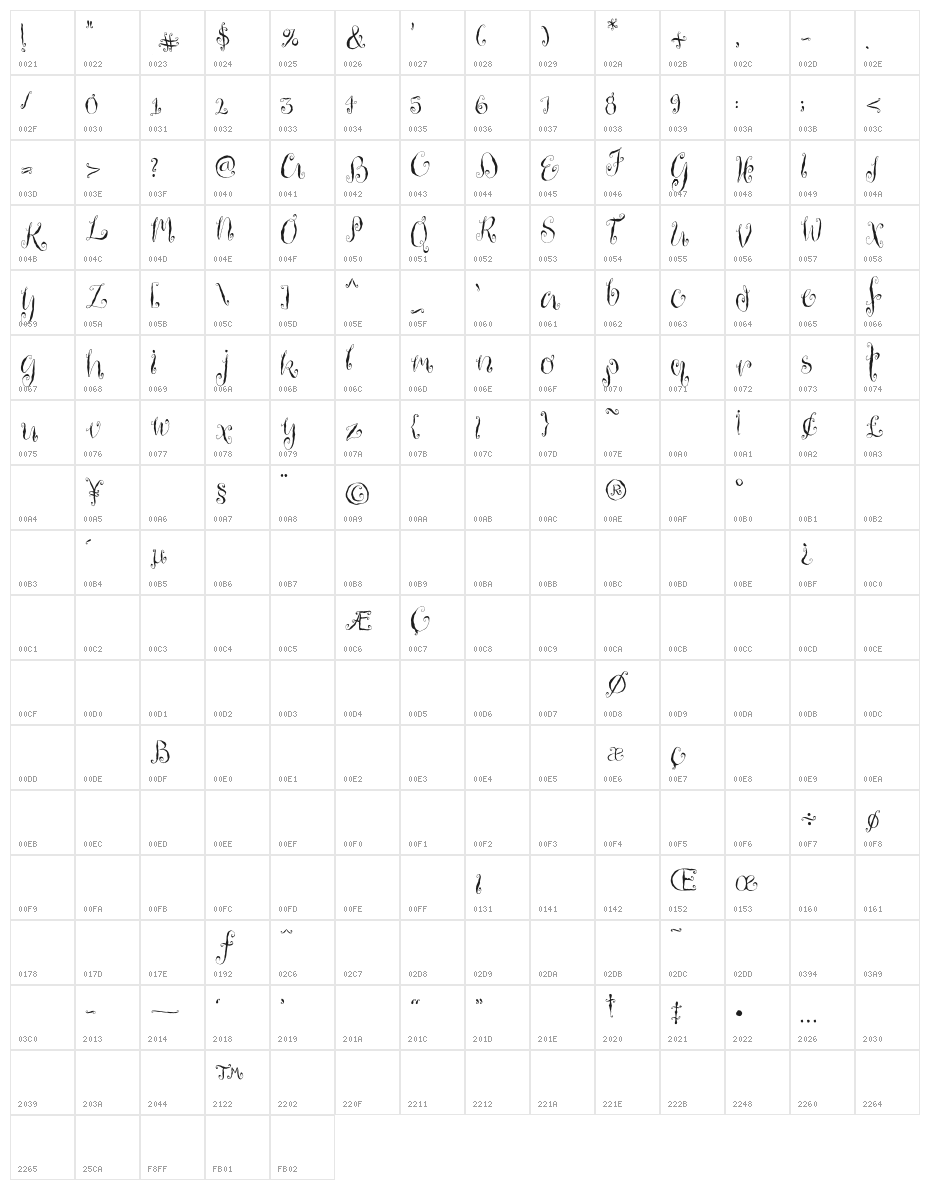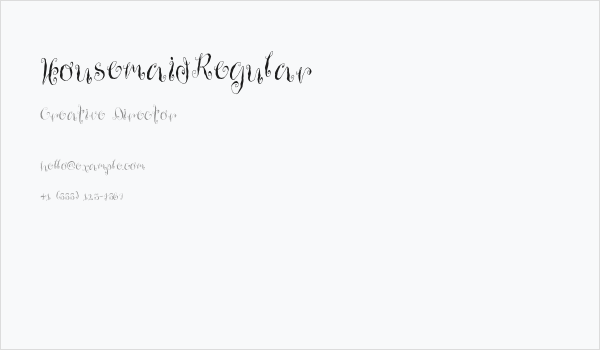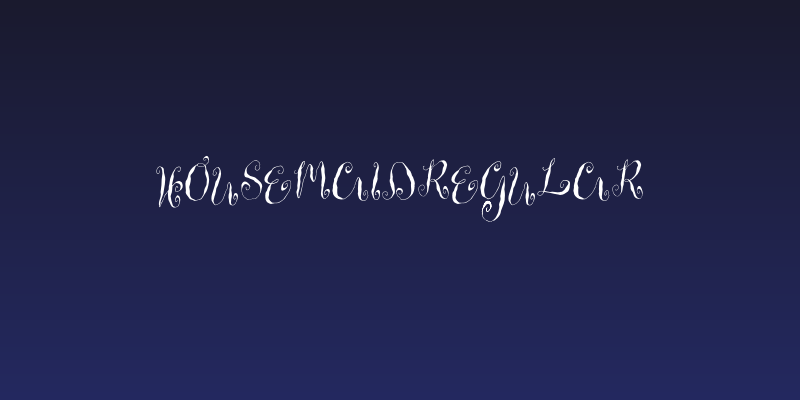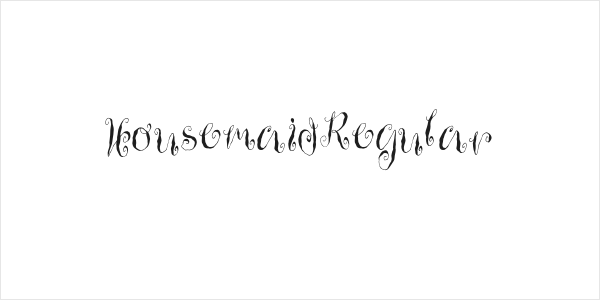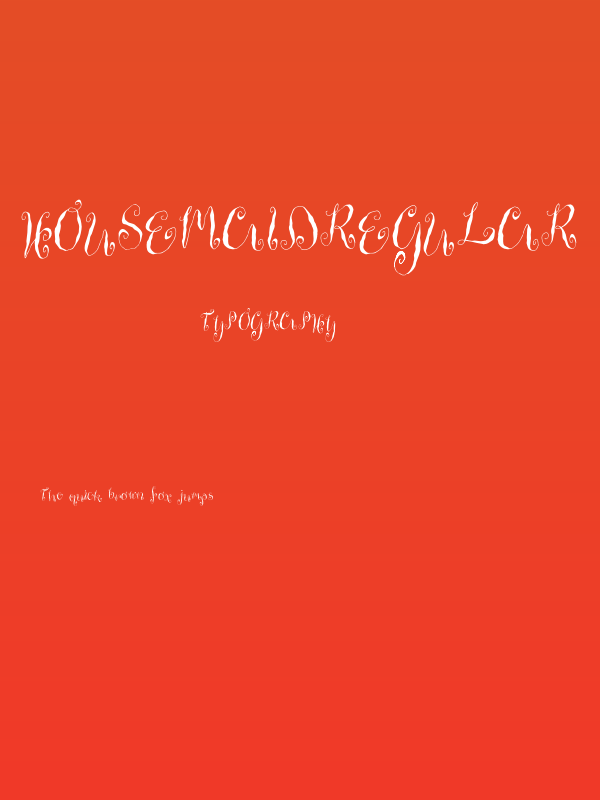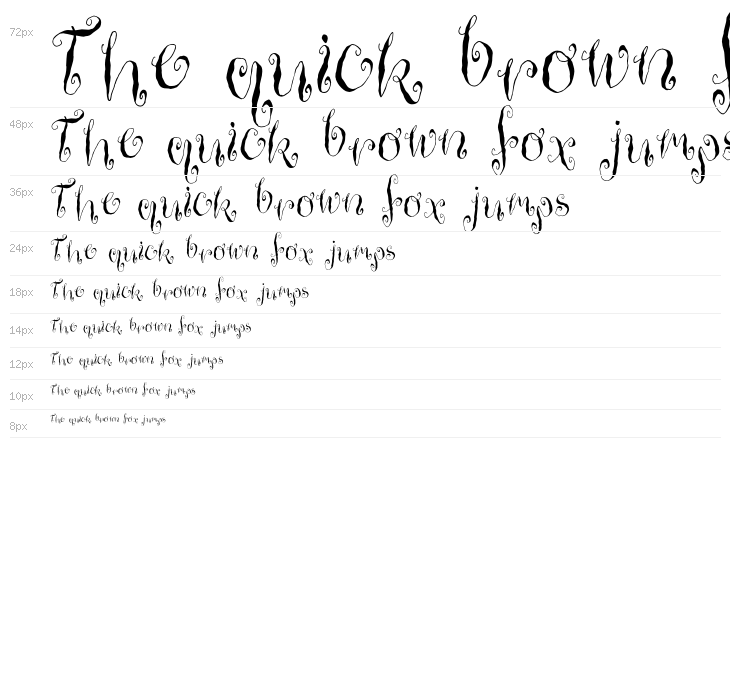
HousemaidRegular Font
HousemaidRegular Description
This font features a whimsical and decorative style, characterized by its curly and ornate letterforms. Each character is adorned with intricate swirls and loops, giving it a playful and artistic appearance. The uppercase and lowercase letters maintain a consistent design theme, with exaggerated curves and flourishes that add a touch of elegance and fantasy. The numbers and special characters follow the same decorative pattern, ensuring a cohesive look across all glyphs. This font is ideal for creative projects that require a unique and eye-catching typeface.
| Proposed Projects | Ideal for invitations, greeting cards, artistic posters, and branding that requires a playful and unique touch. |